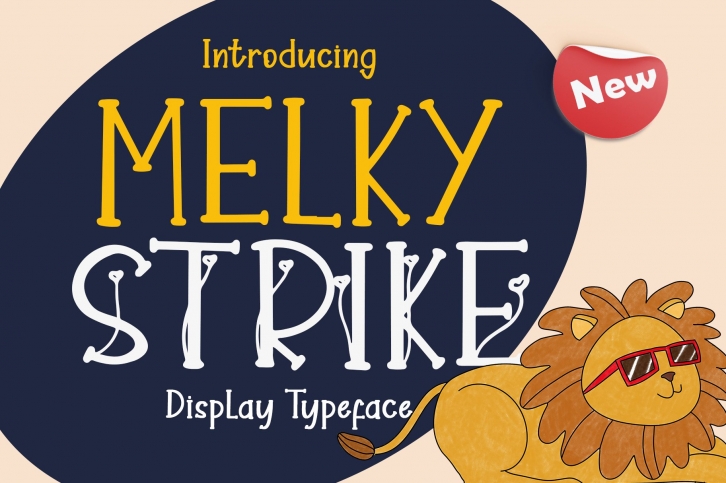
Melky Strike is a quirky and incredibly unique display font. This enchanting font will turn any creative idea into a true standout. Melky Strike is PUA encoded which means you can access all of the glyphs and swashes with ease!Â